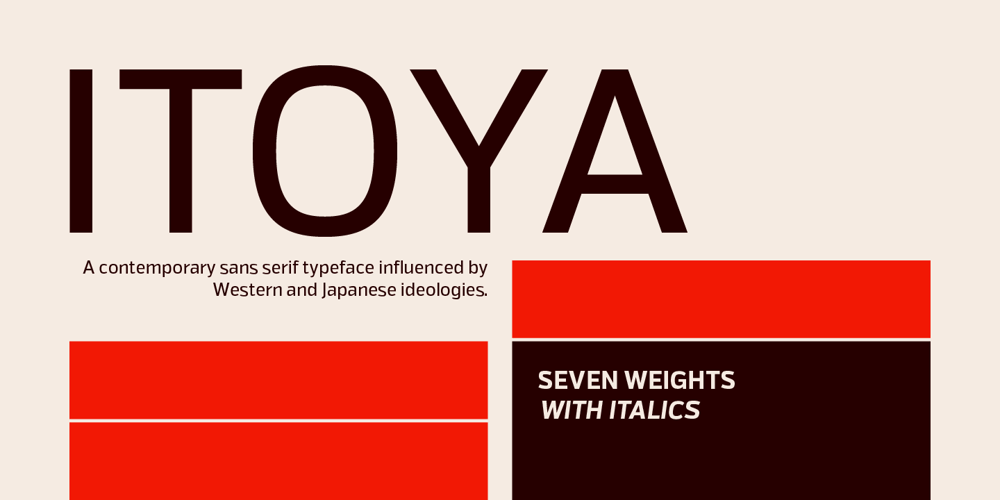
Itoya Font Family was designed by Jonathan Hill and published by The Northern Block. Itoya contains 14 styles and family package options. Itoya is a contemporary sans serif font influenced by Western and Japanese ideologies. A fusion of modern machine-like functions with a warmer, emotional and more spiritual ethic. The marriage of a western precision and eastern expression forms a sharp functional font with a modern edge ideally suited to graphic novels, fashion and product design. Details include seven carefully chosen weight with true cursive italics, over 600 characters, alternative lowercase a, e, g and y. Five variations of numerals, ligatures, manually edited kerning and Opentype features.